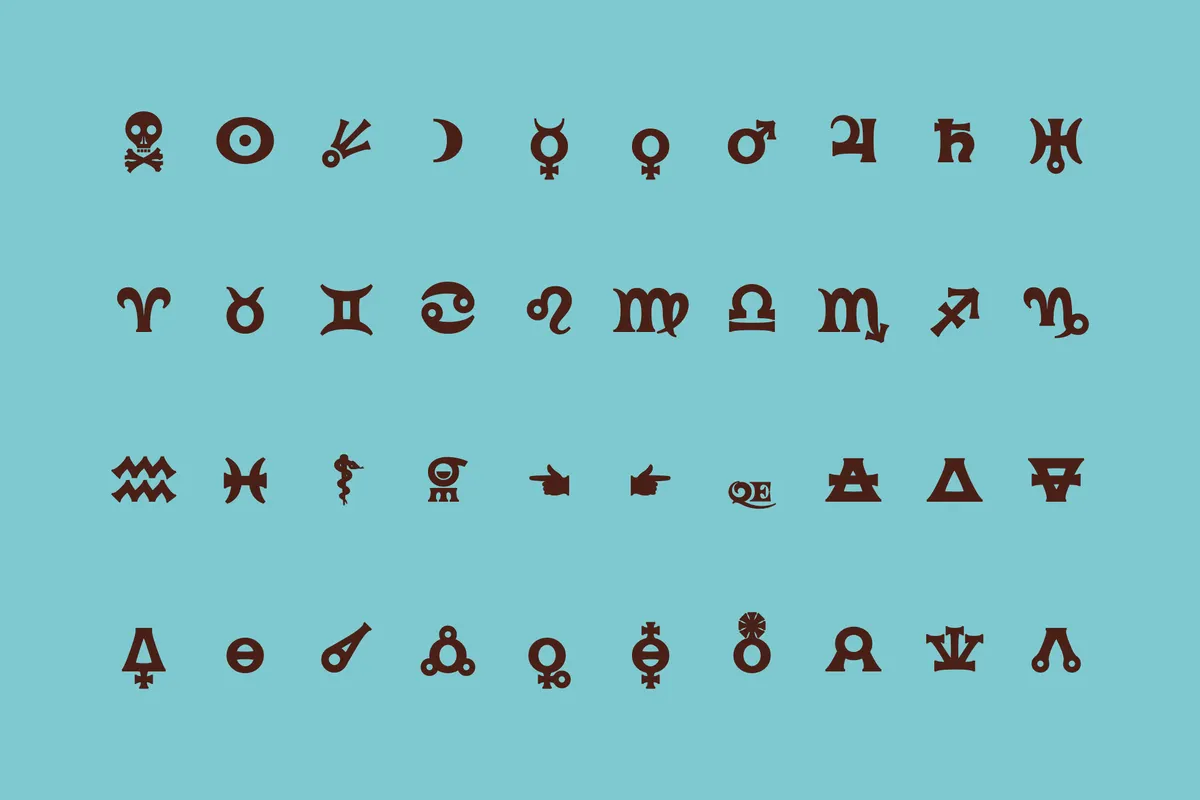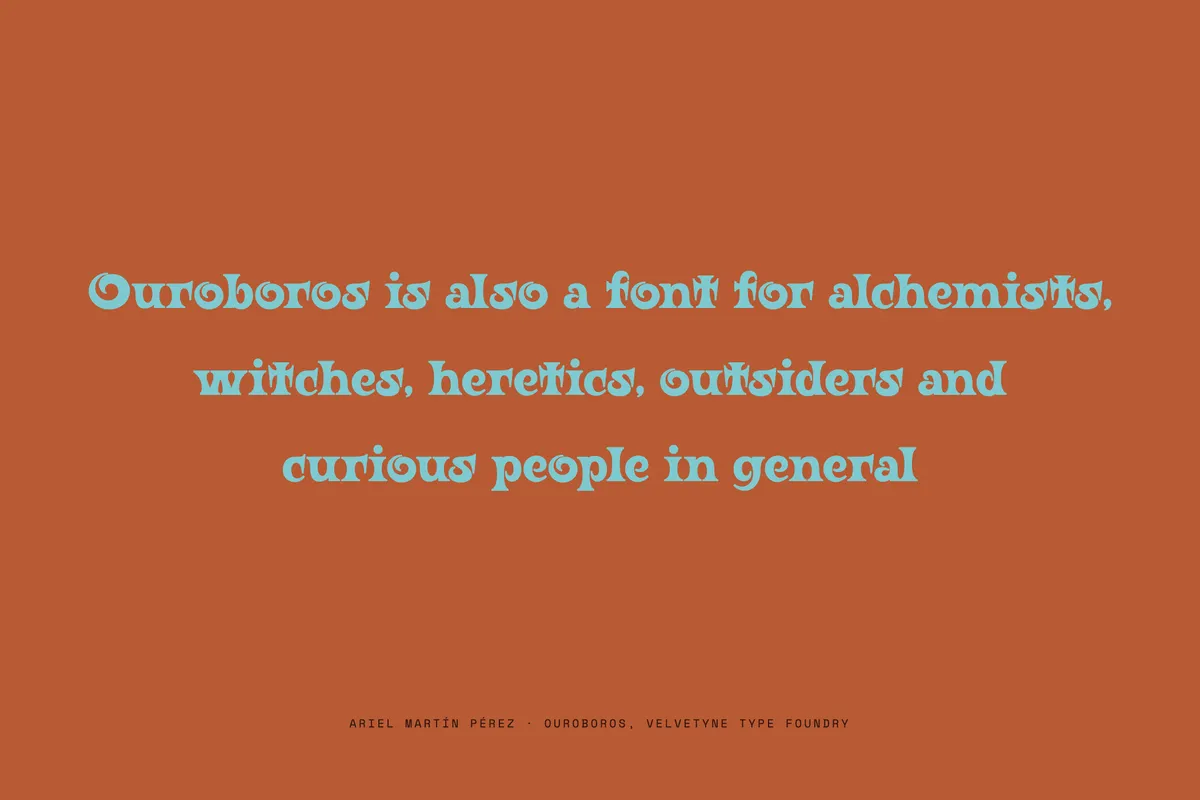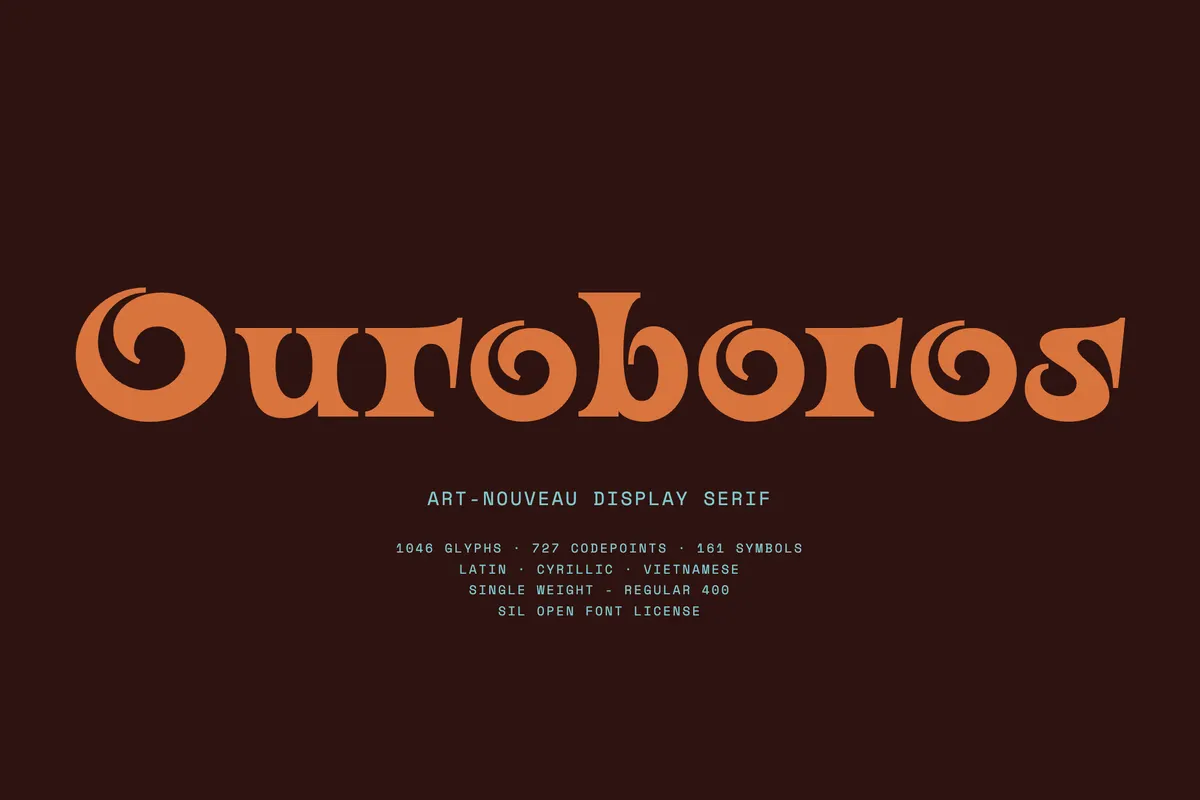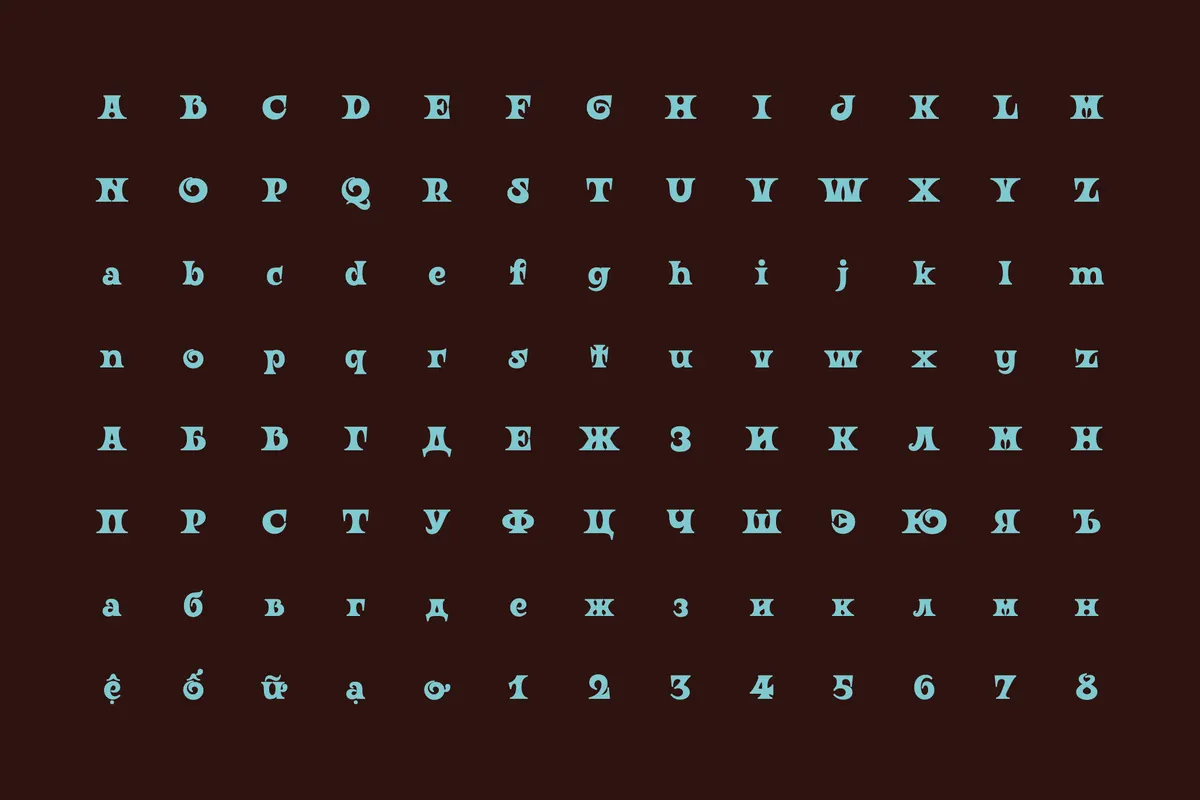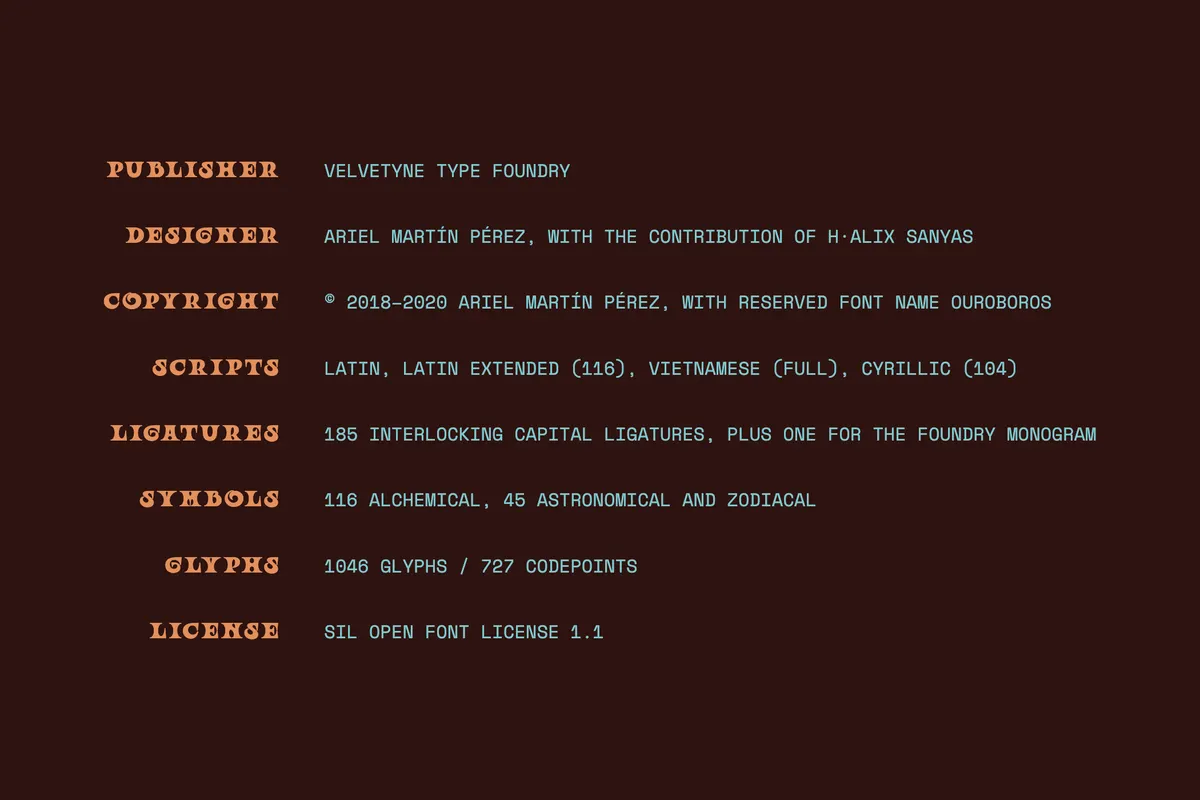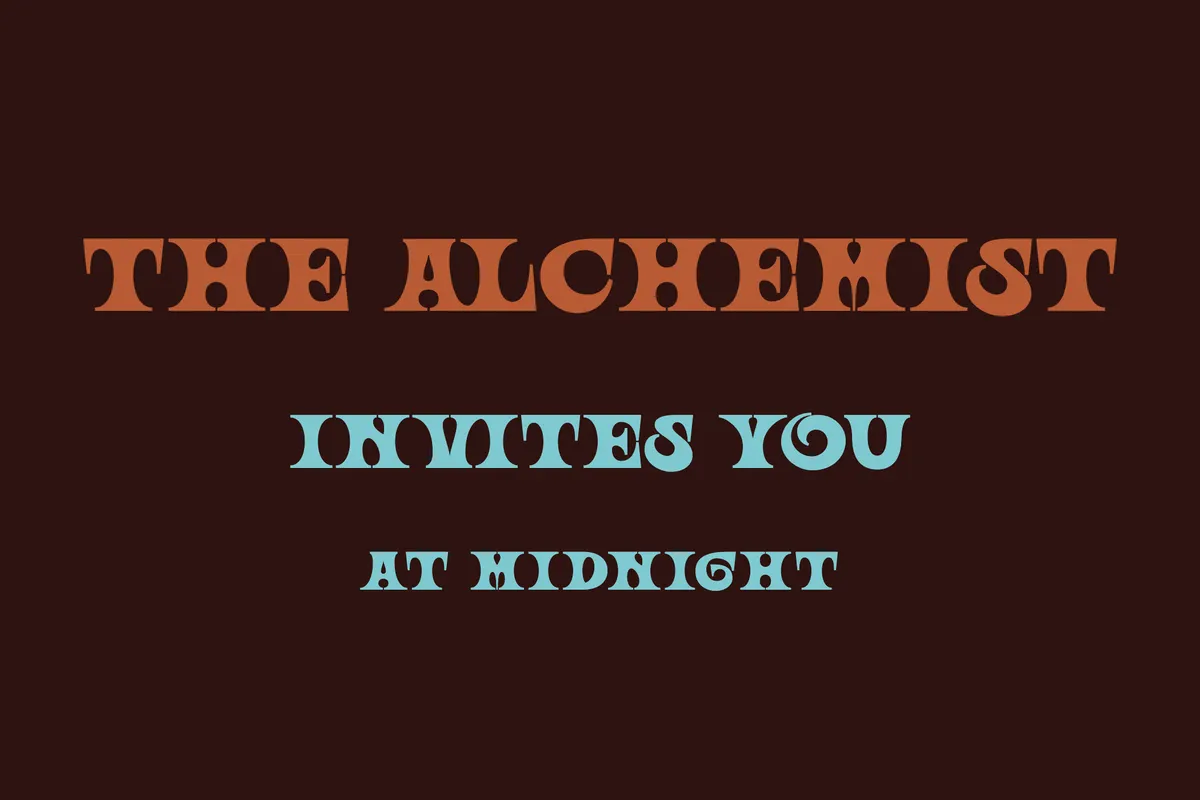
Ouroboros — Free Art Nouveau Display Font
Ouroboros is lifted from early Art Nouveau lettering, the ornamental kind that once wrapped occult pamphlets and apothecary labels. It carries a full block of alchemical symbols alongside zodiac signs, a comet, a skull and crossbones, a caduceus and an alembic, so the ornament comes built into the character set. Hundreds of linked capital ligatures let a title knot itself together like a monogram.
The font suits tarot decks, occult book covers, poster headlines, apothecary packaging, festival identities, album artwork, museum graphics, game titles, and ceremonial stationery.
- uppercase and lowercase letters;
- numbers, punctuation, and symbols;
- 116 alchemical symbols plus 45 astronomical and zodiacal signs;
- 185 linked capital ligatures and three stylistic sets;
- multilingual support across extended Latin, Vietnamese, and Cyrillic scripts.